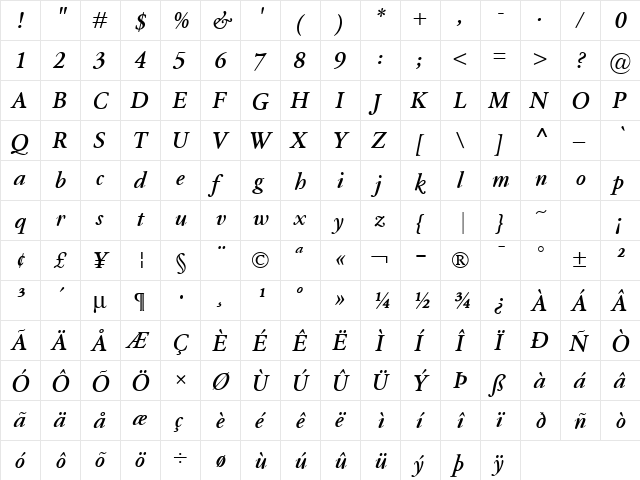
Garamond Classico BoldItalic Font Preview
Design Context for Garamond Classico Typeface
Garamond Classico wears its vintage influences proudly, with letterforms that recall mid-century signage, classic packaging, and nostalgia-driven design. The dynamic lean of this cut emphasises speed and emphasis in any layout. The heavy weight commands attention and anchors typographic hierarchies.
Perfect for vintage-inspired branding, retro packaging, nostalgia campaigns, and period-accurate editorial design.
Font Pairing: Combine Garamond Classico with a simple slab or neutral sans — period-accurate companions reinforce the vintage feel without competing for attention.
Pro Tip: Use Garamond Classico for headlines and pull quotes rather than body copy — its personality is best appreciated in short, focused bursts.